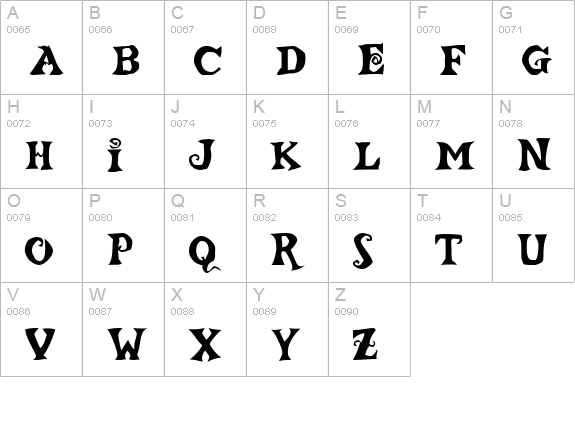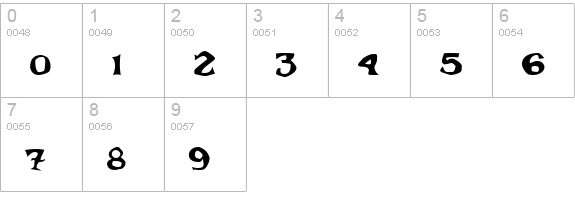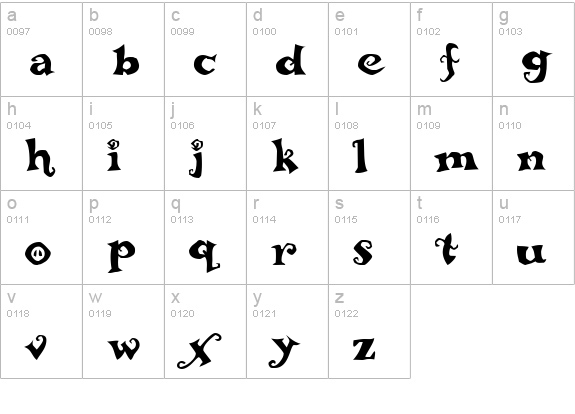
ReBucked font is a stunning display font that will add a touch of elegance and sophistication to any design project. With its bold and sleek letterforms, ReBucked offers a modern twist on classic typography. What sets ReBucked font apart is not just its remarkable aesthetics, but also its accessibility. This font is freely available to download at FontsMarket.com, making it a perfect choice for designers on a budget or anyone looking to add a unique flair to their creations without breaking the bank. Whether you're designing a logo, creating eye-catching headlines, or crafting beautiful invitations, ReBucked font is sure to make a lasting impression. Its clean lines and refined curves exude professionalism and style, making it a versatile choice for a wide range of design projects. In addition to its striking appearance, ReBucked font is also incredibly easy to work with. Its well-designed characters ensure smooth readability, even at smaller sizes, while still retaining its bold impact. This makes it ideal for both print and digital applications. With ReBucked font, you'll never have to compromise on quality or creativity. Its freely available nature allows you to explore endless design possibilities without any restrictions. So go ahead, unleash your imagination, and let ReBucked font elevate your designs to new heights. Download it for free at FontsMarket.com and start creating stunning visuals today.